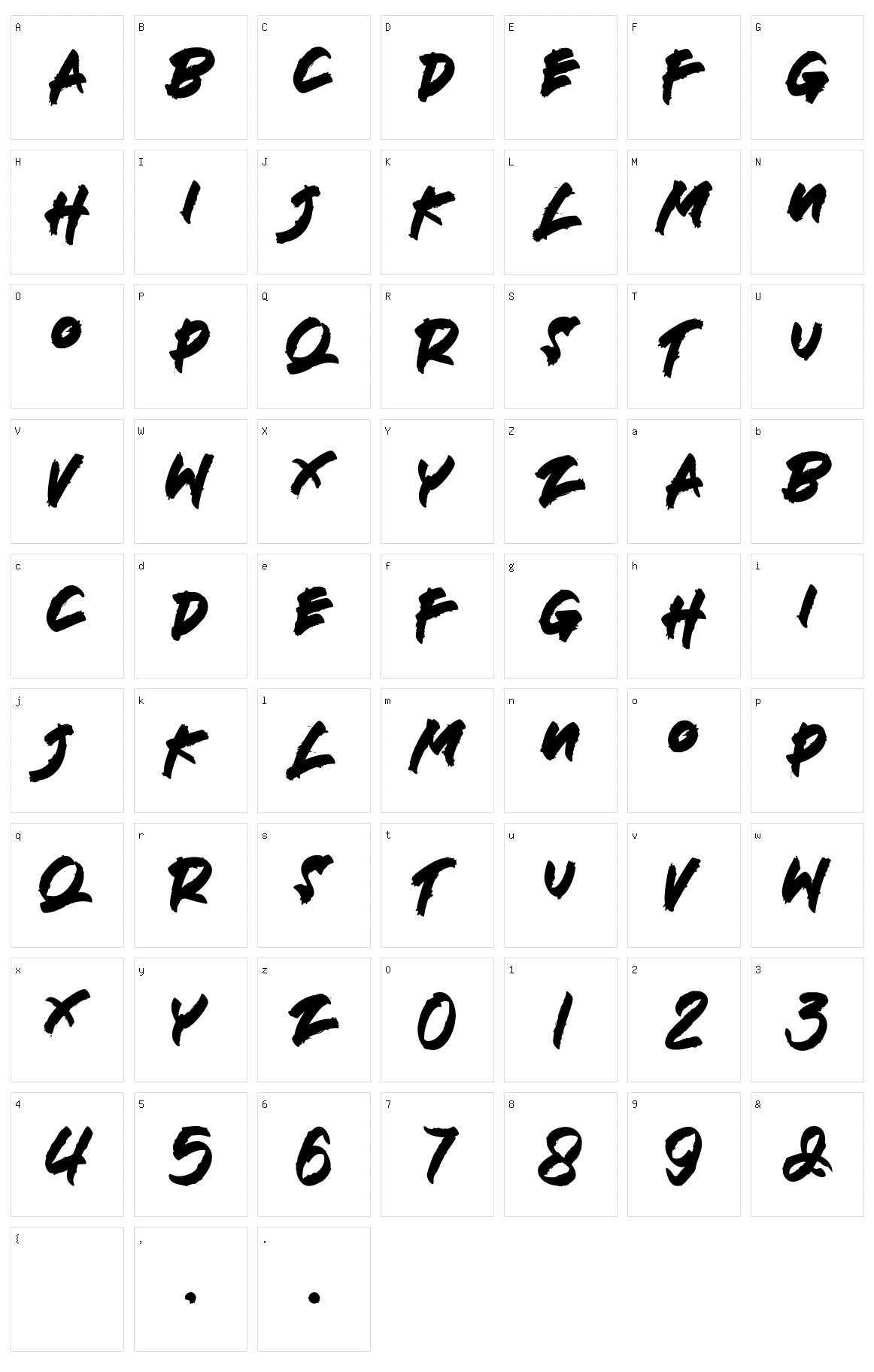
The free font Deathblood is carefully designed by Creativework69 Studio, showcasing a thoughtful balance of creativity and usability and falls under the Trash font style. When you download the ZIP file, it contains only 71.46 KB of font files, making it lightweight and quick to download. Please review the license details below to understand permitted usage and distribution rights. If license information is not available, we recommend using this font for personal projects only or contacting the author directly for commercial usage permissions.